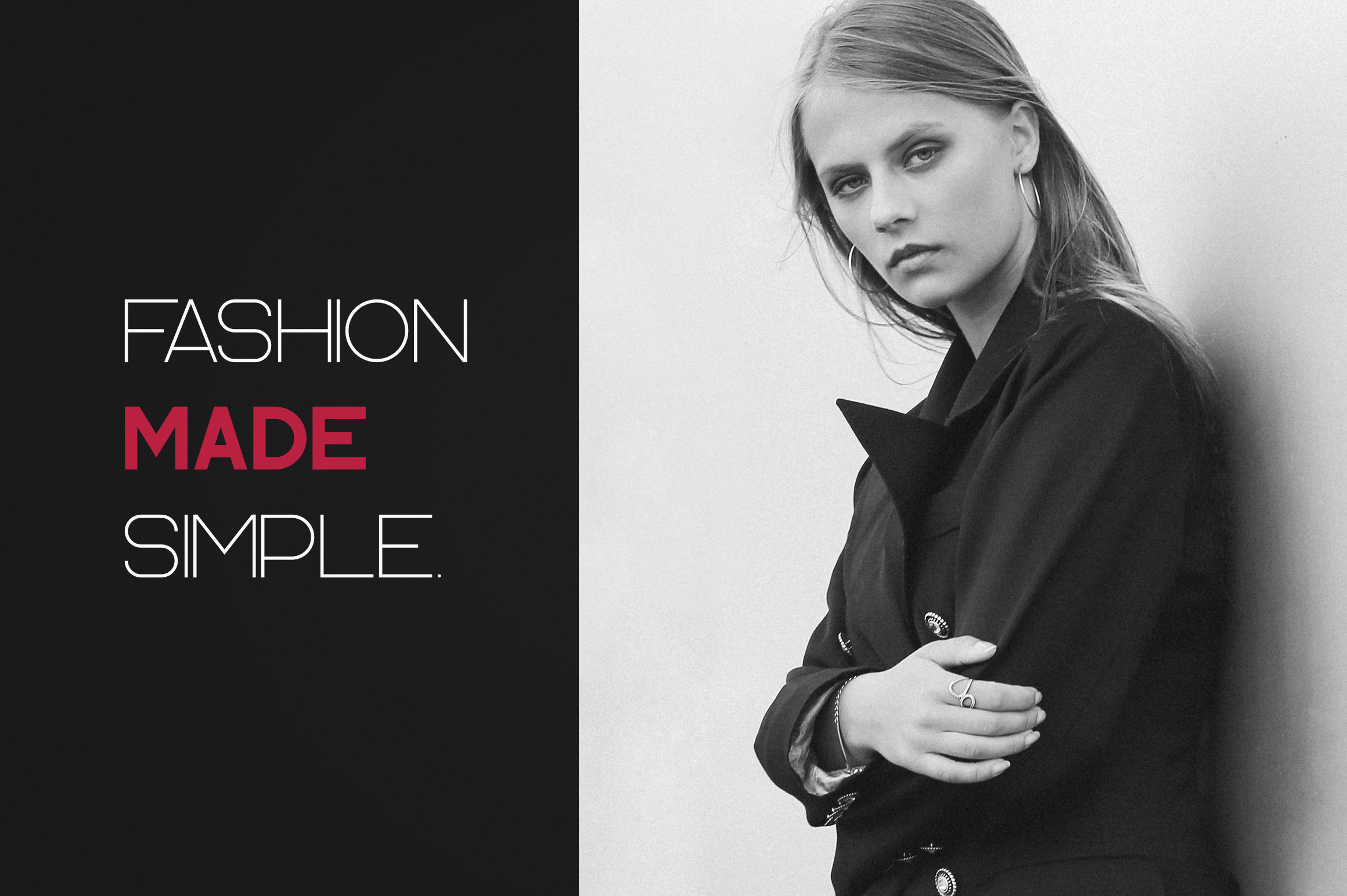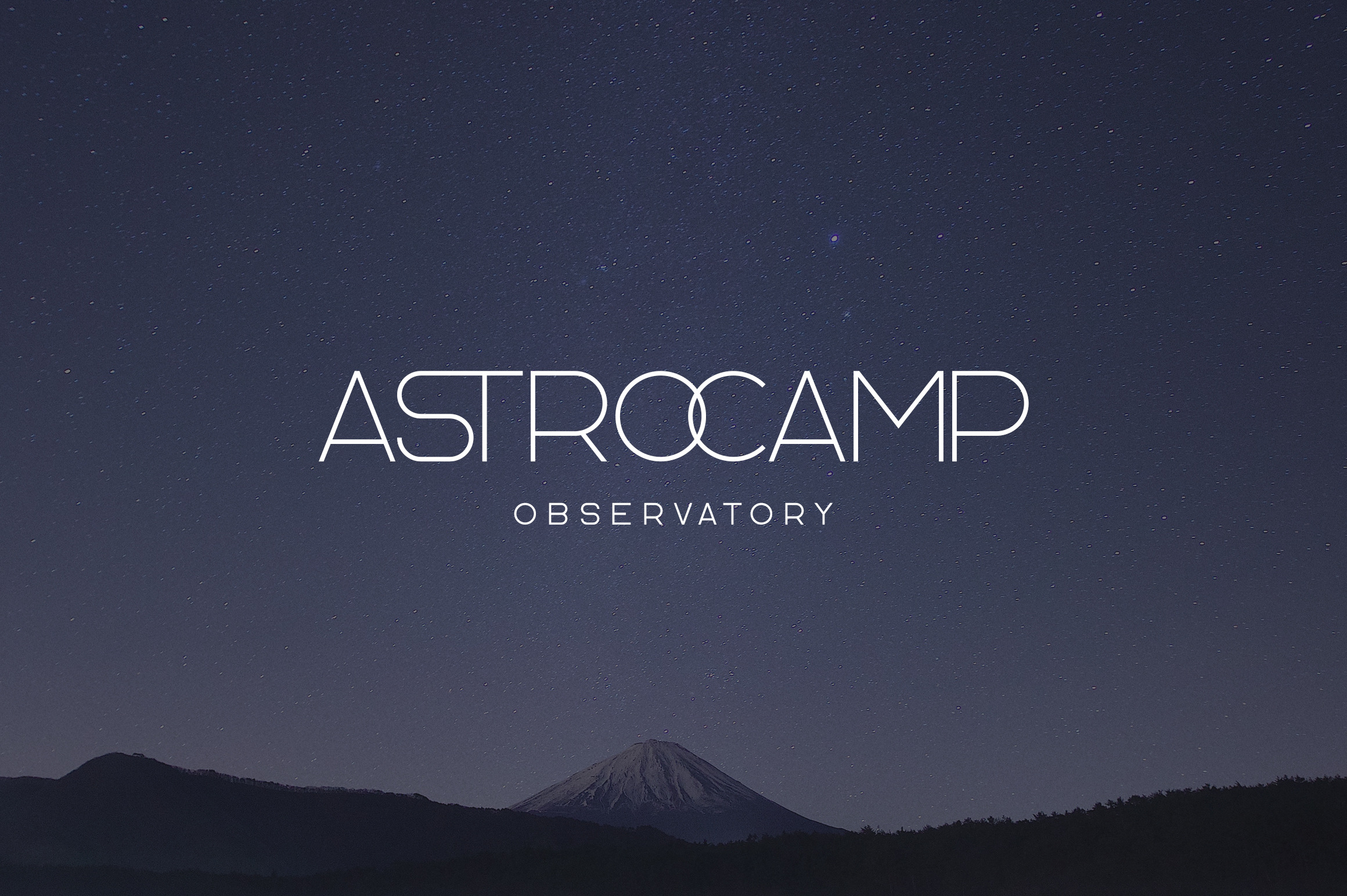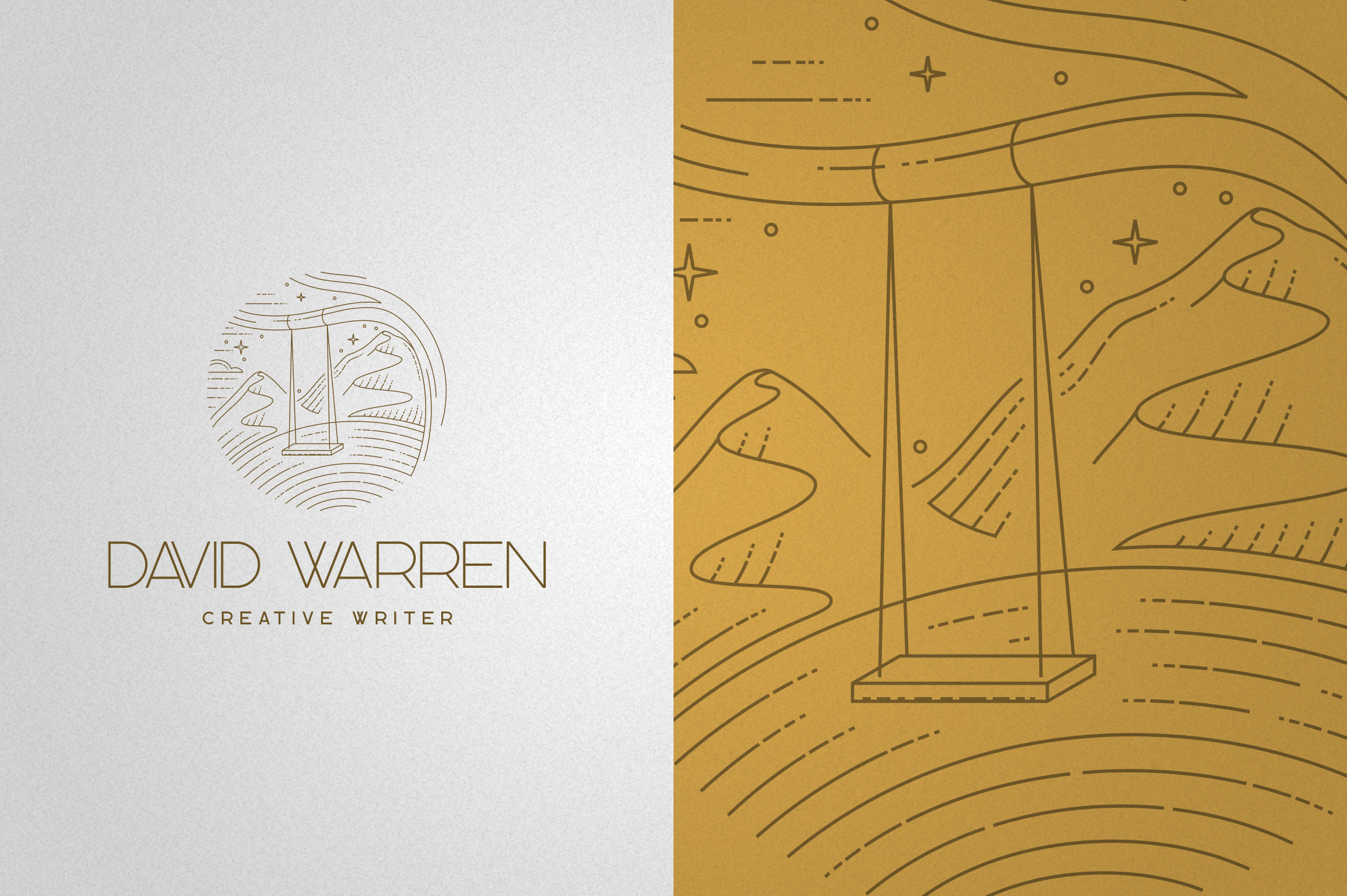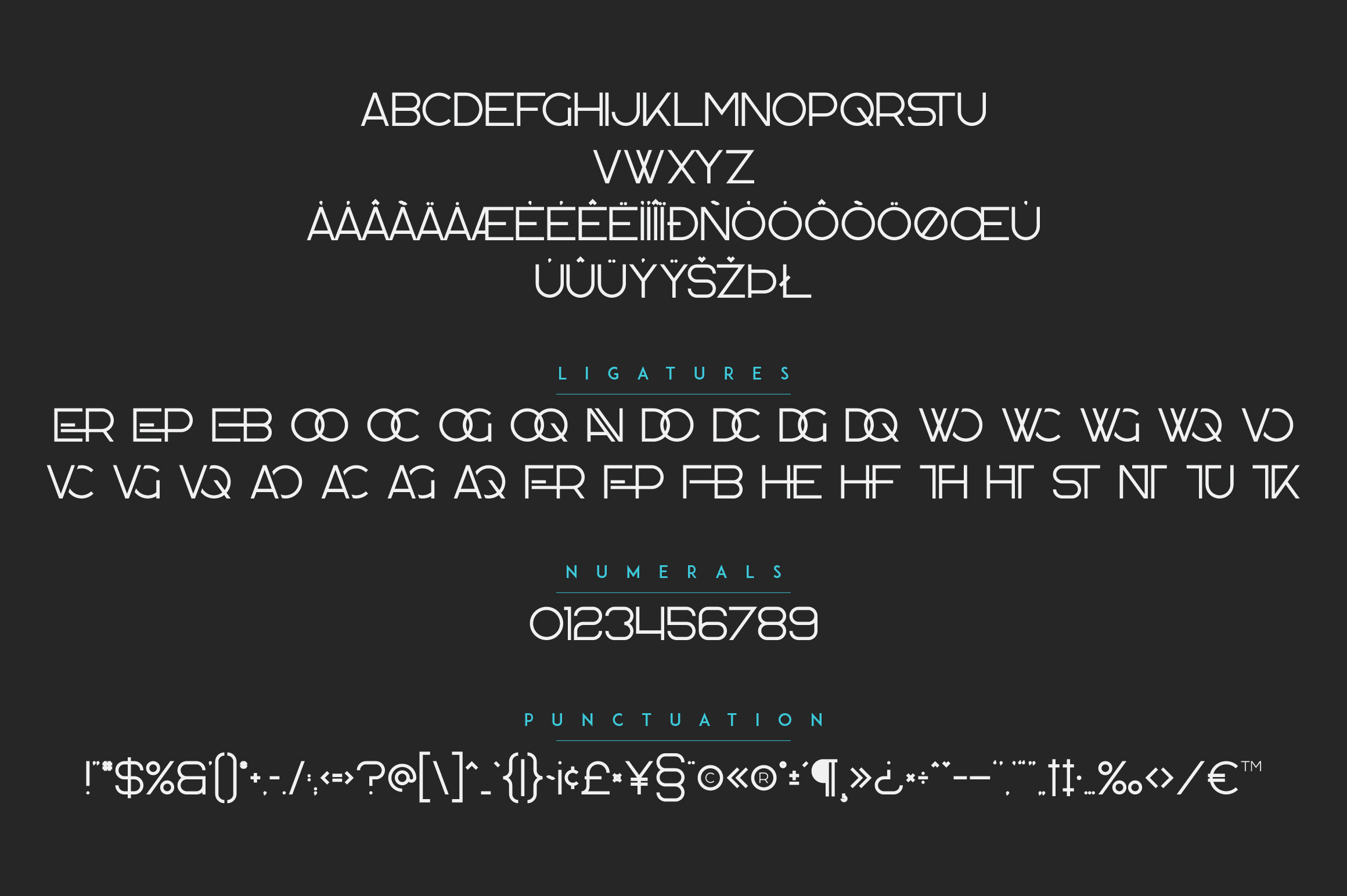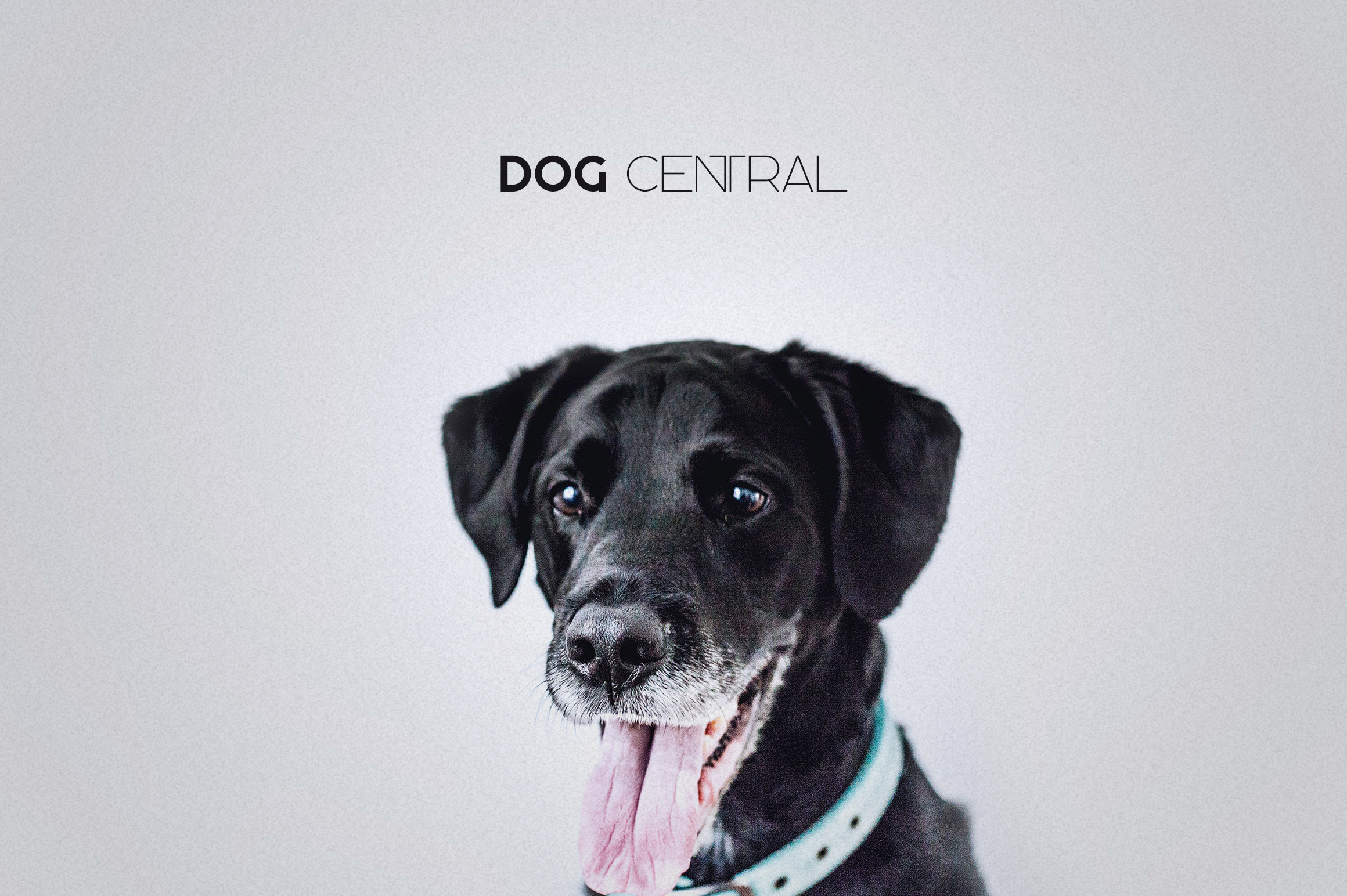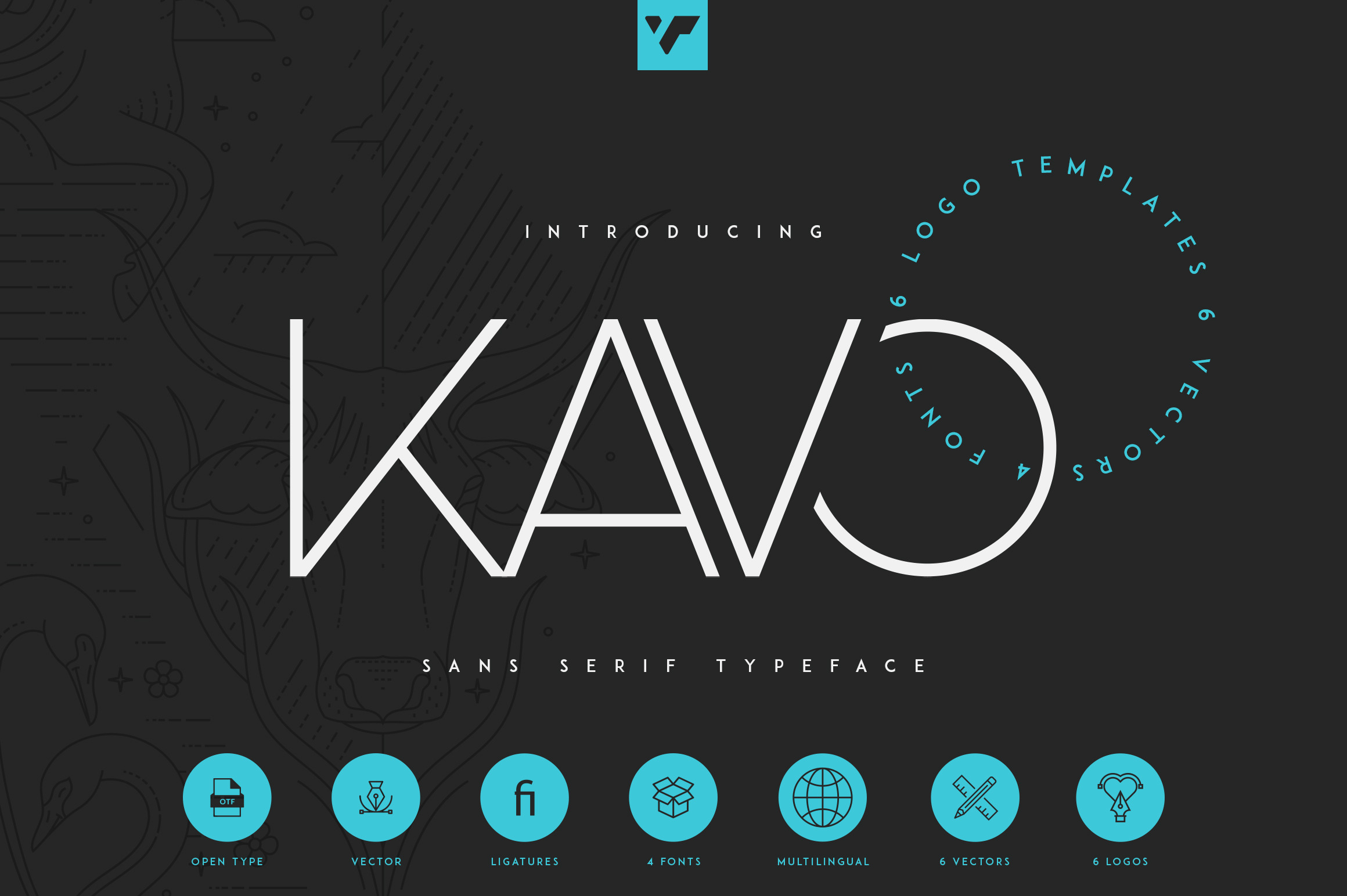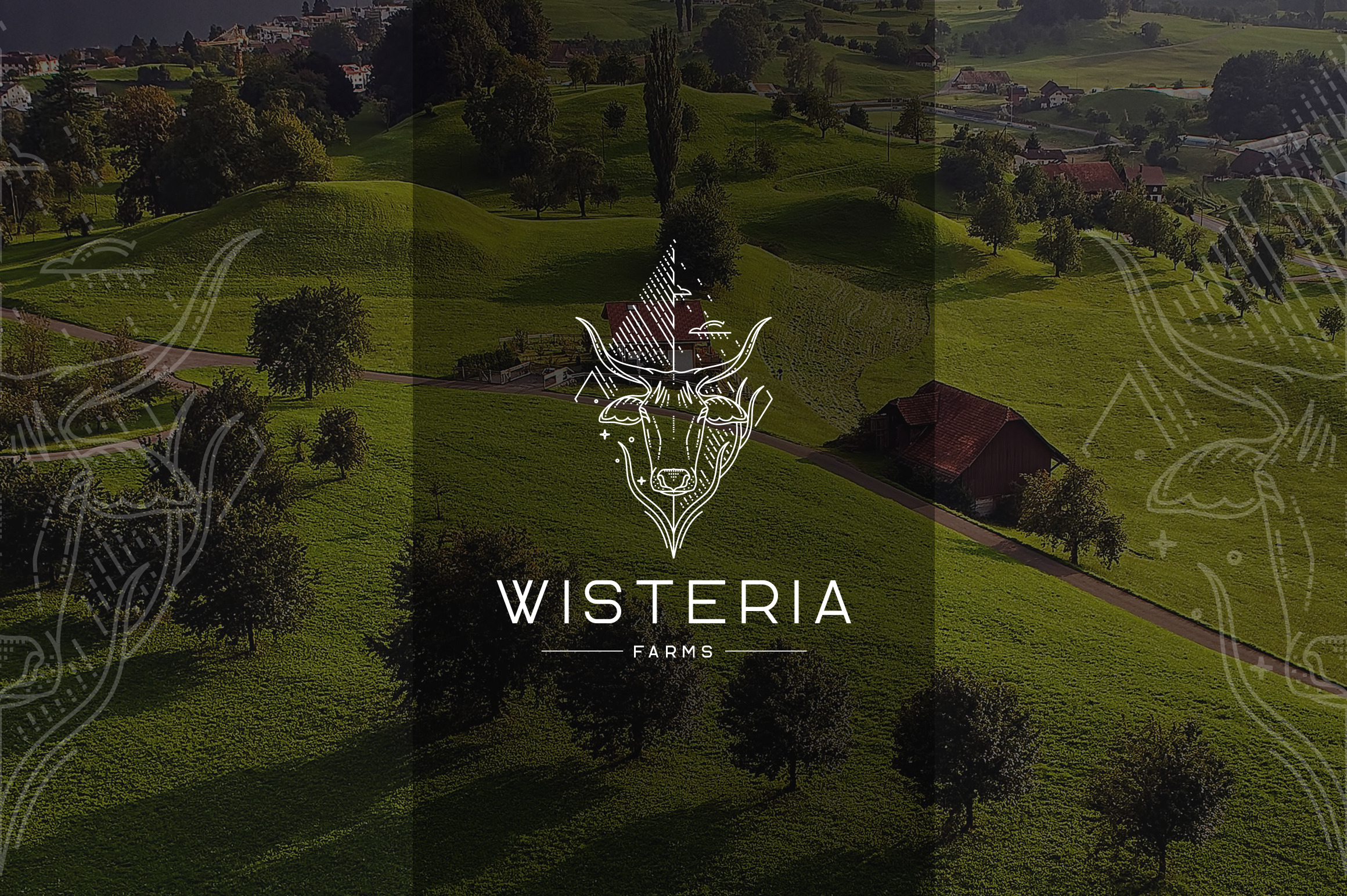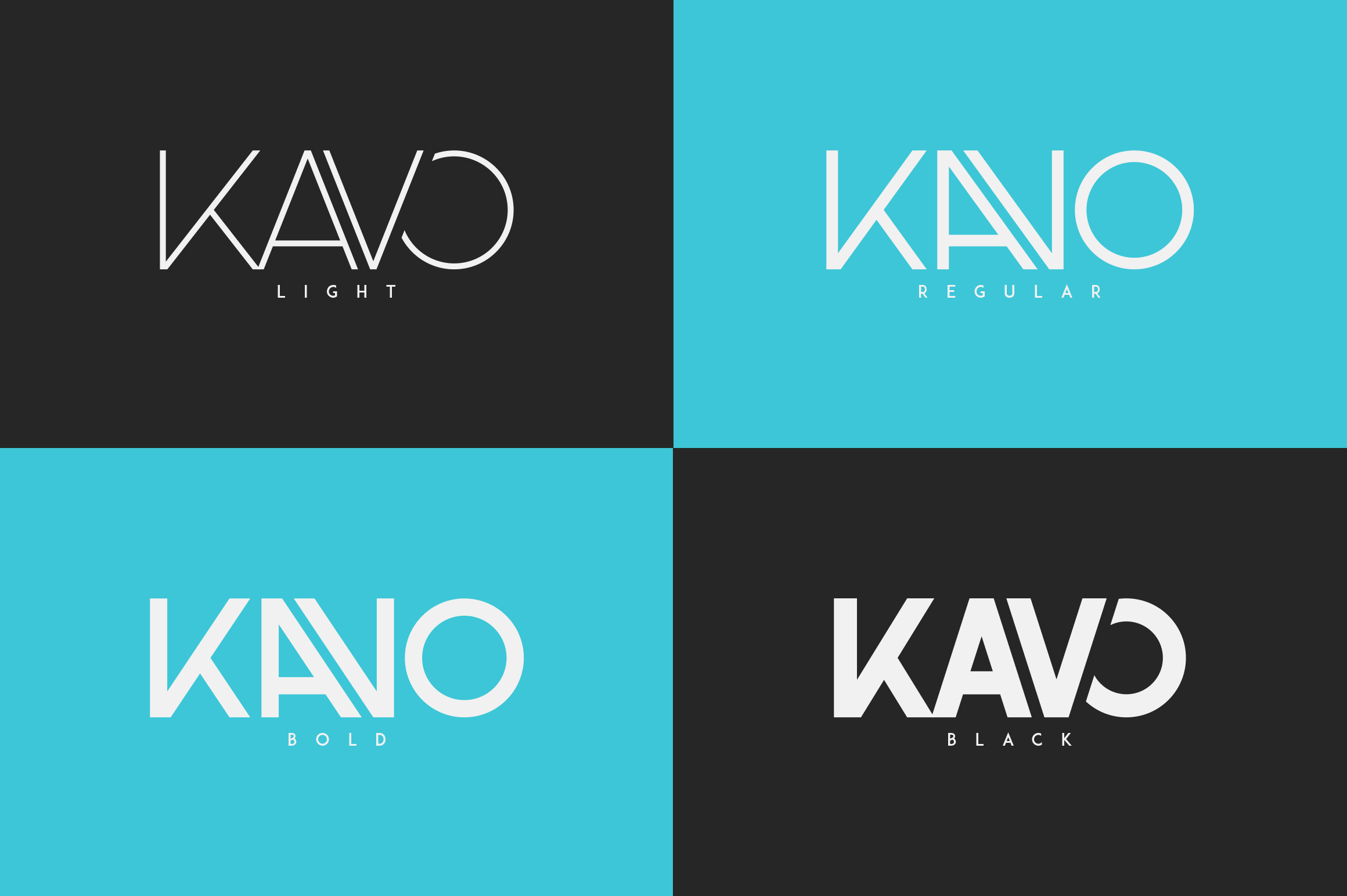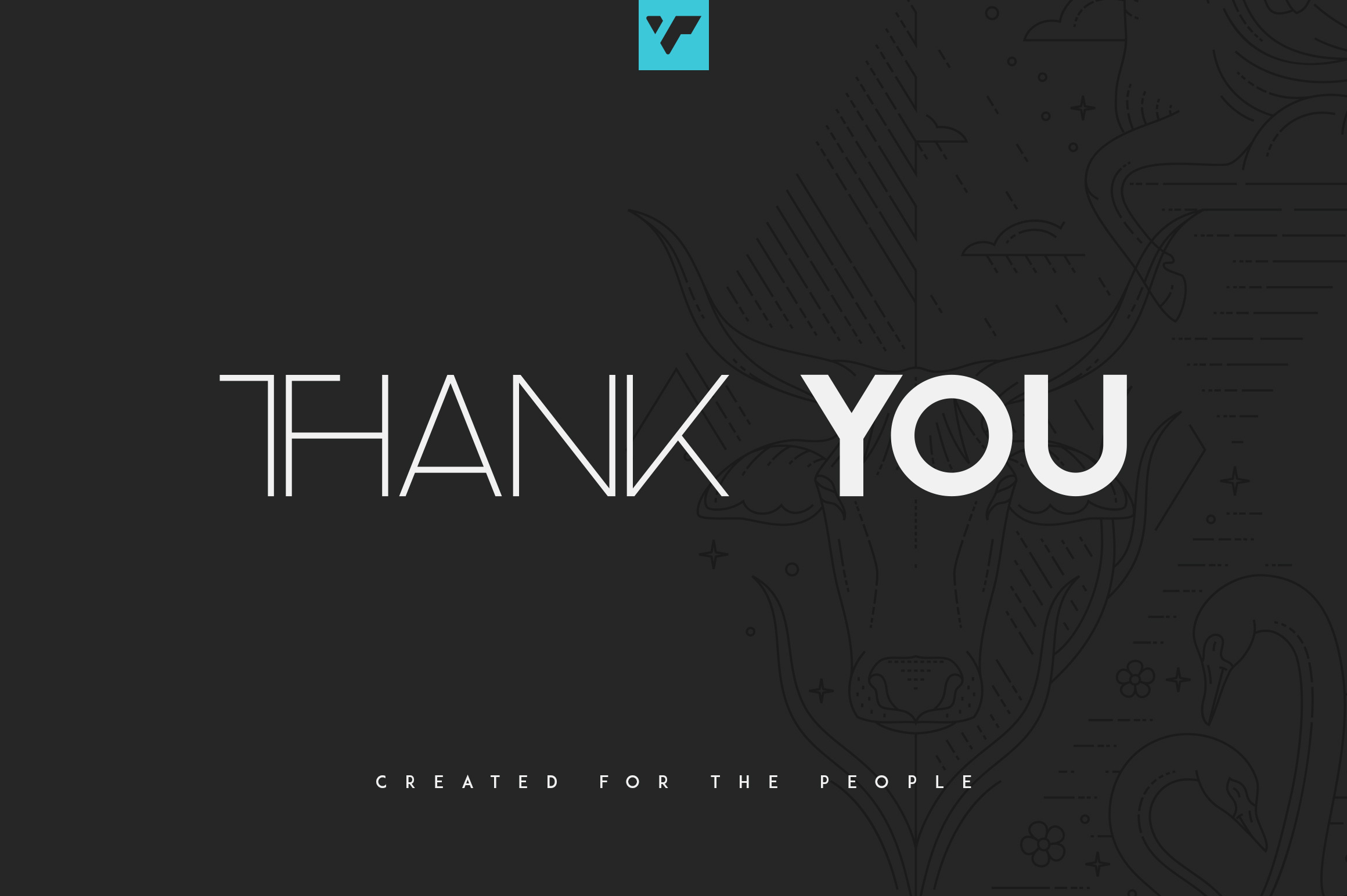
Kavo Sans Serif + 6 Logo Templates by Vp Fonts | Creative Market
Introducing Kavo Sans Serif typeface - 4 weight + 6 Logo Templates Kavo is clean, modern typeface with 4 weight, ligatures, 6 awesome vector designs, 6 logo templates and multilingual support. It's a very versatile font that works great in large and small sizes. Kavo is perfect for branding projects, home-ware designs, product packaging, magazine headers - or simply as a stylish text overlay to any background image. - - Uppercase, numeral, punctuation & Symbol - Light - Regular - Bold - Black - 6 vector designs Ai, EPS ( stroke ) , PSD ( light, regular, bold lines ) and JPEG - 6 logo templates Ai, EPS, PSD - Multilingual support - Feel free to contact me if you have any questions! Mock ups and backgrounds used are not included. Thank you! Enjoy! | Kavo Sans Serif + 6 Logo Templates | VP Fonts